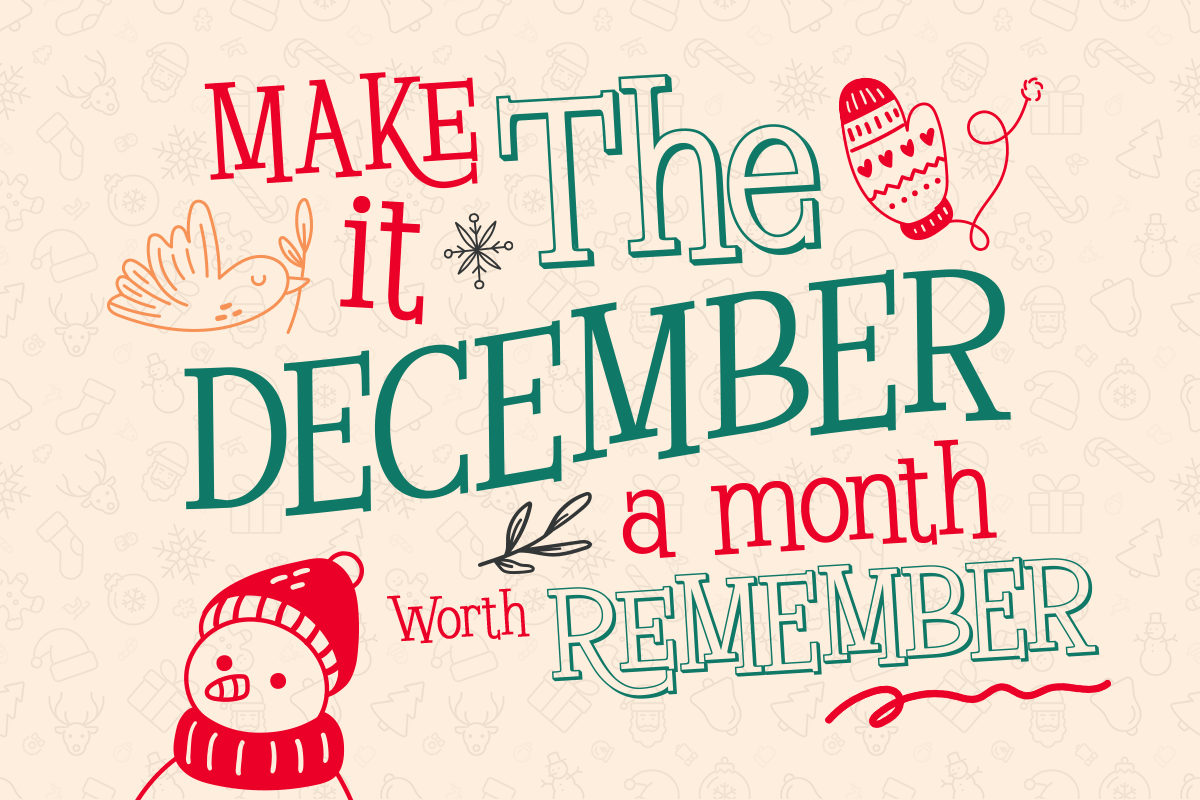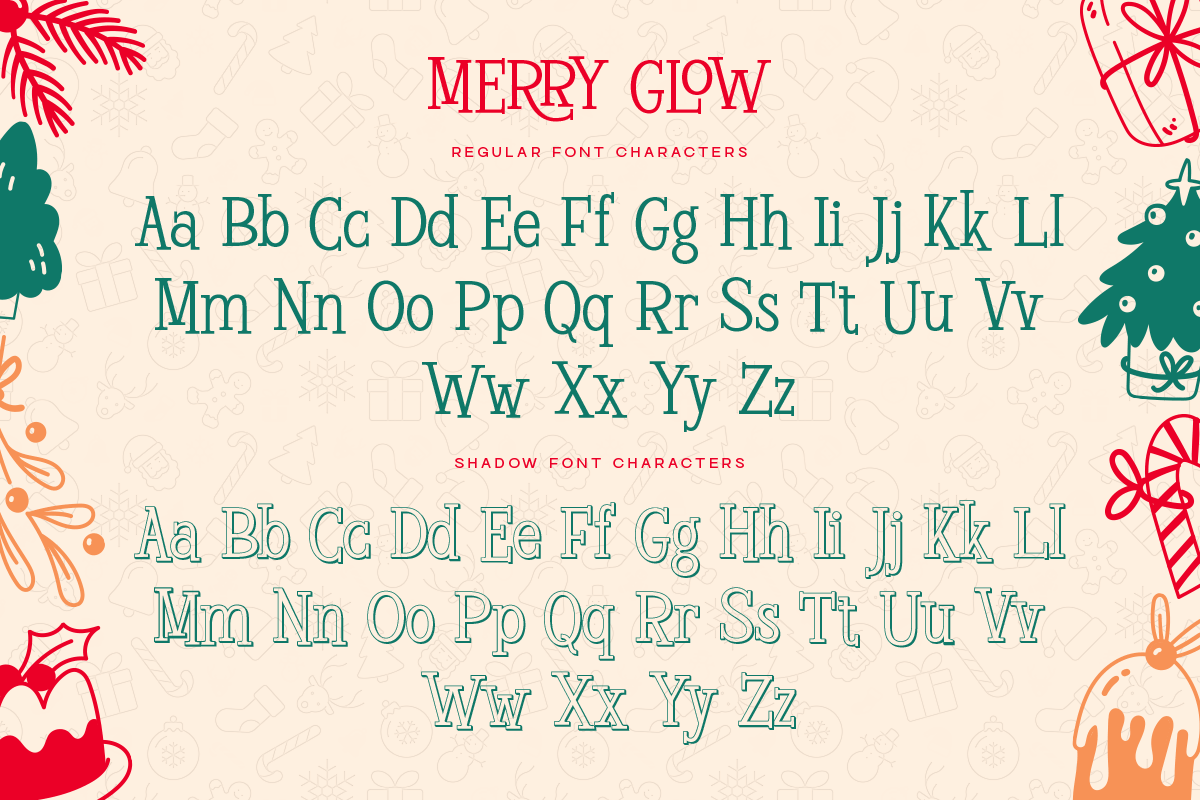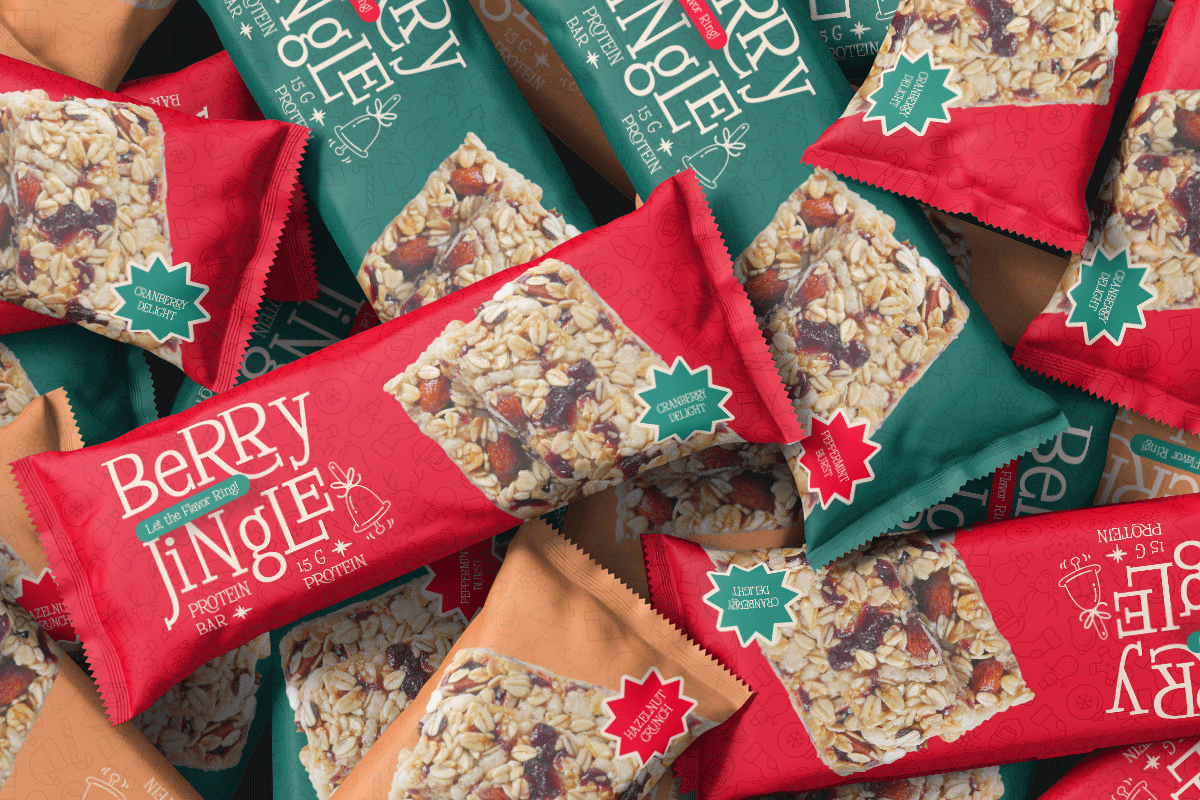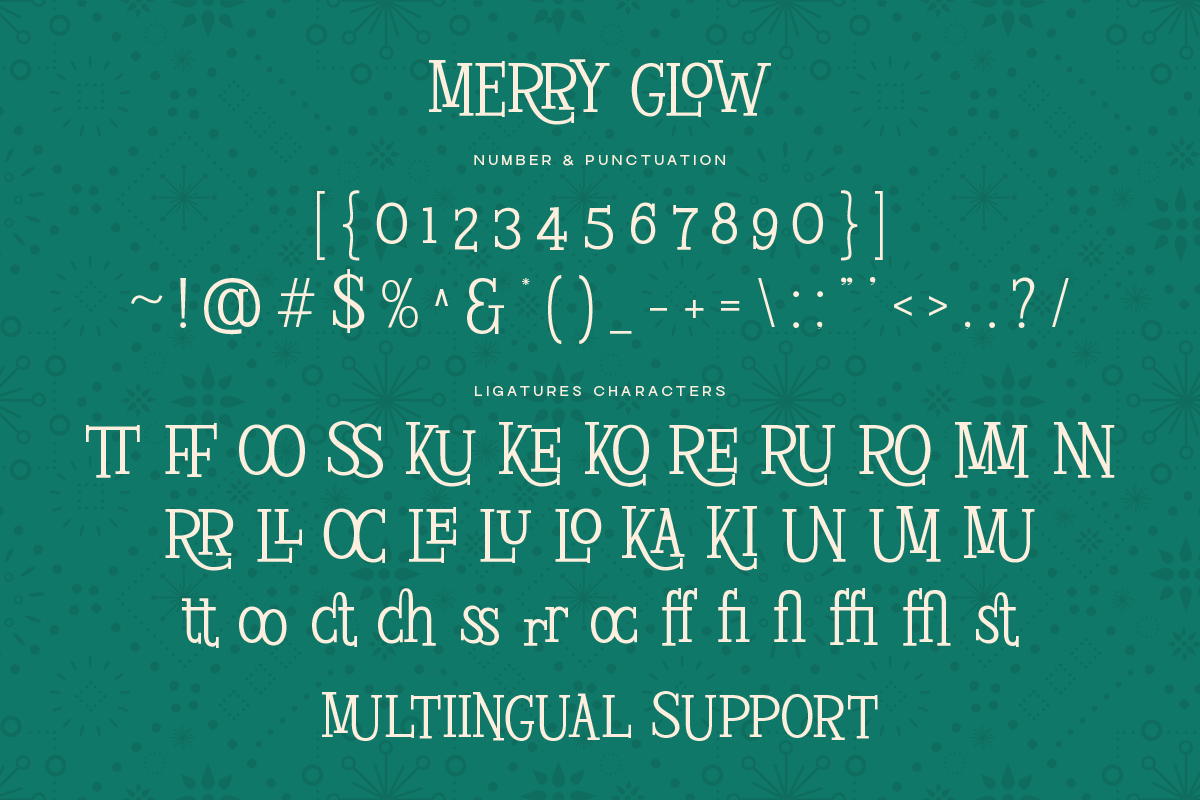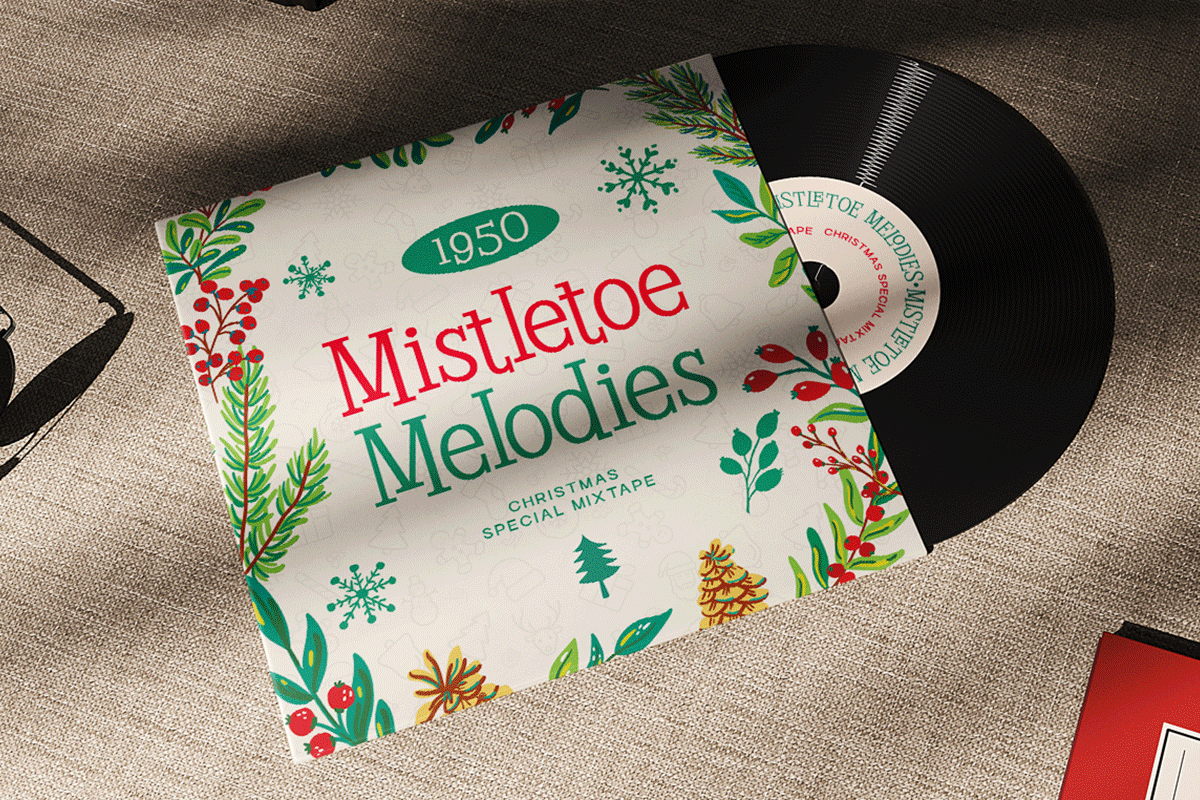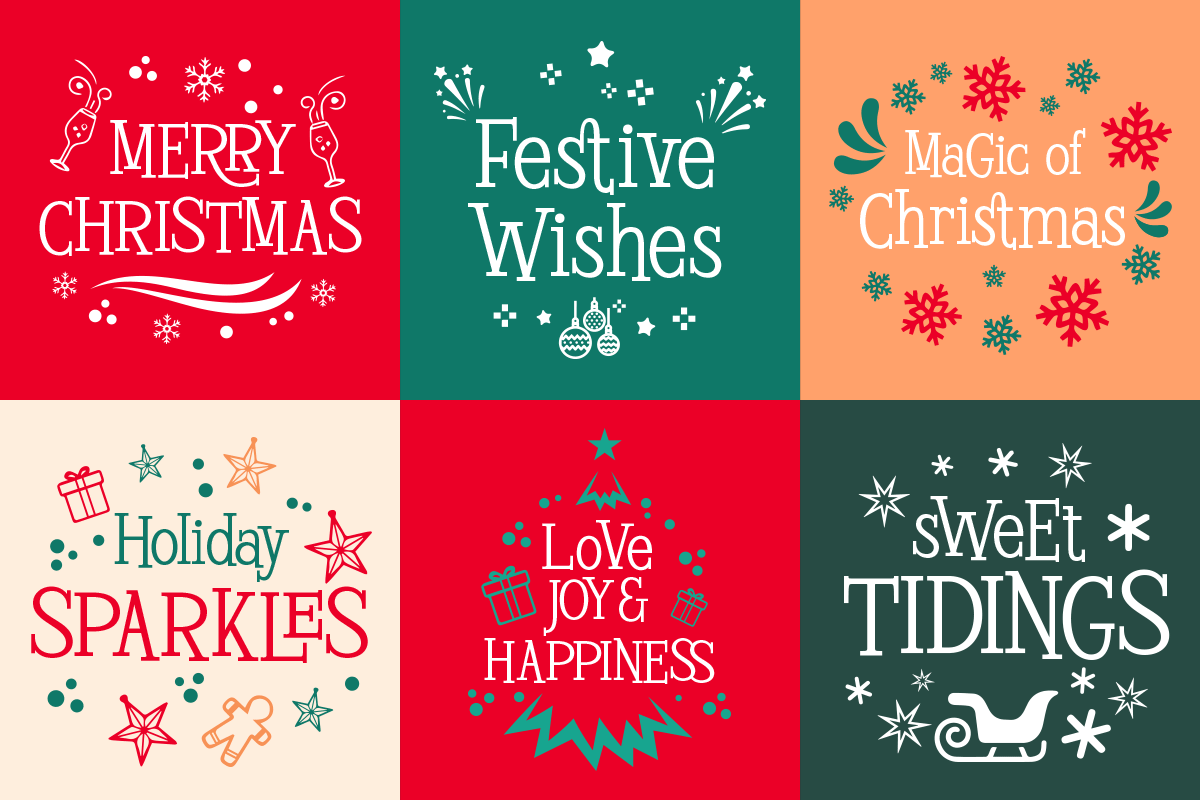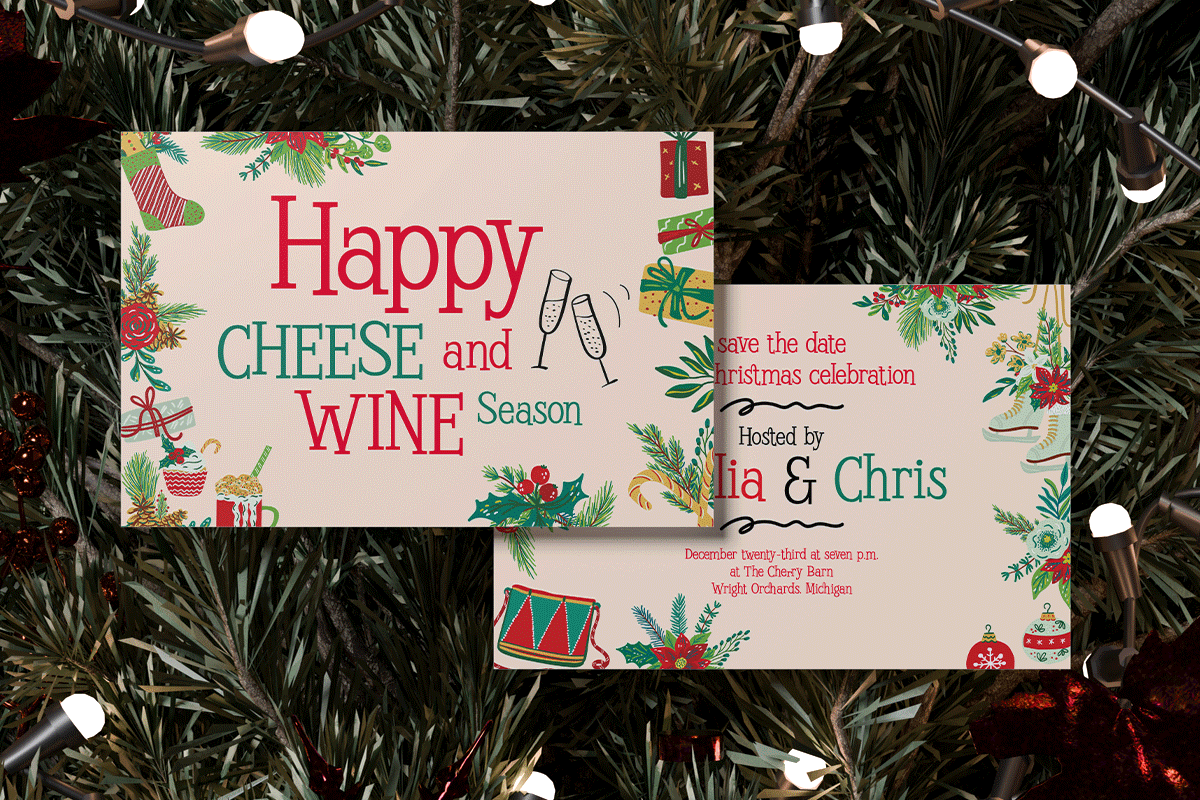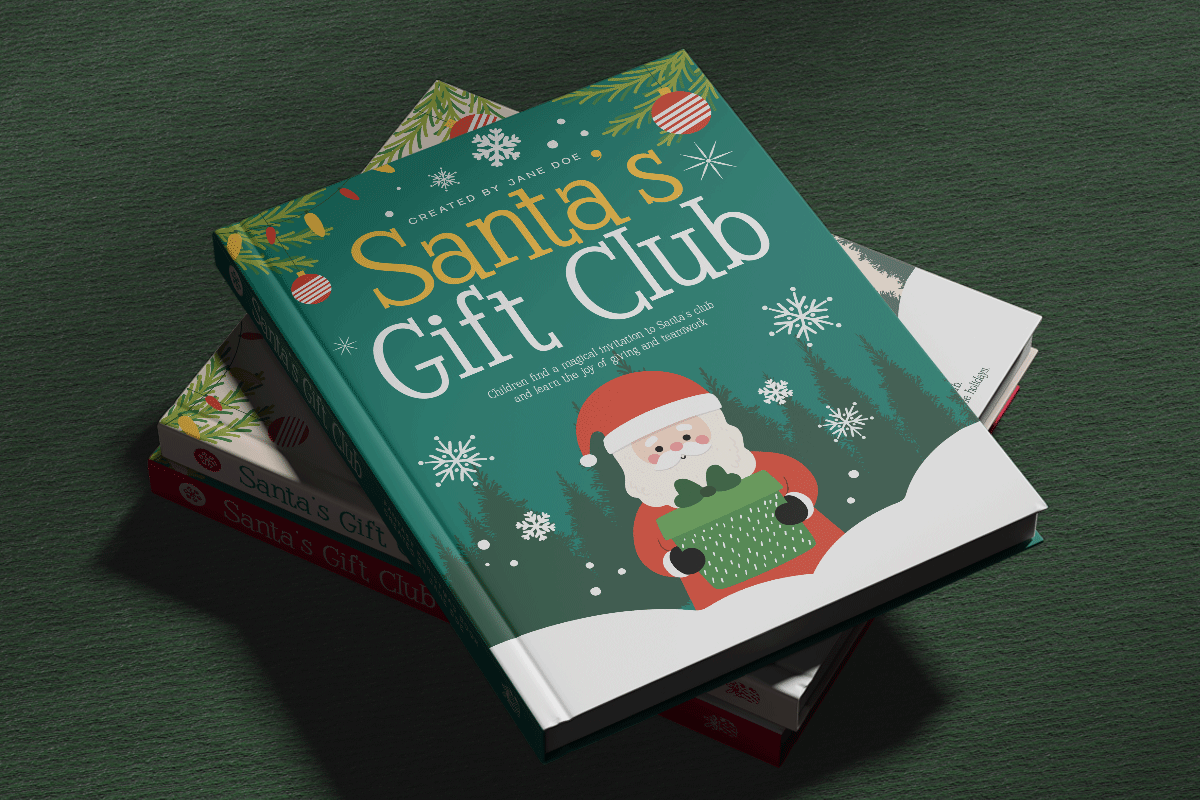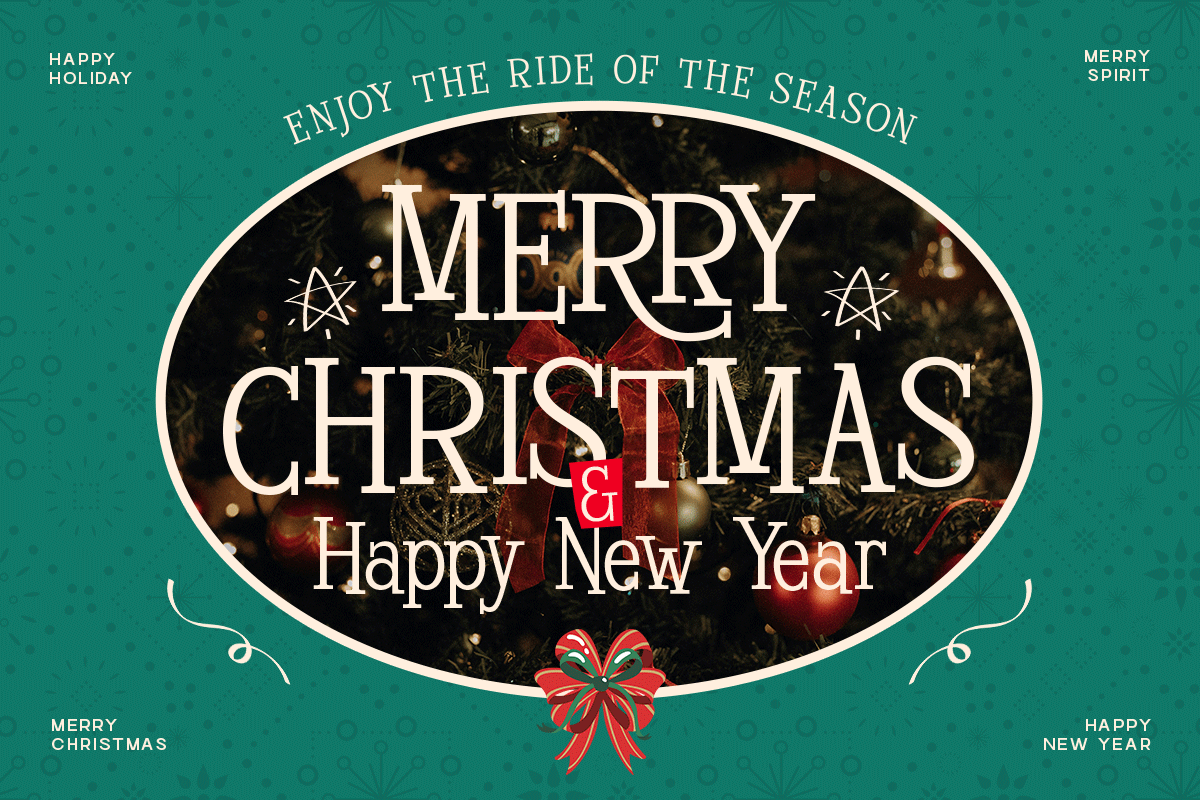
Merry Glow – Christmas Display Serif
Merry Glow is a festive Christmas display serif that brings warm holiday cheer to every design. Featuring 2 fonts a classic serif and a decorative Christmas variant Merry Glow delivers joyful, vintage-inspired character perfect for seasonal branding and cozy creative projects. Crafted with playful curves and cheerful details, this font is ideal for holiday cards, Christmas packaging, invitations, social media designs, and festive merchandise. Merry Glow is festive, joyful, and charming. A Christmas display serif with warm curves, holiday elegance, and playful seasonal character. Vibe cheerful vintage Christmas cozy, nostalgic, and decorative.
- 2 Christmas Display Fonts
- Decorative holiday elements
- Beautiful festive serif style
Perfect For: Holiday branding, Christmas cards, packaging, ornaments, invitations, stickers, posters, social media posts, and craft-making.